In the world of creative design, understanding the psychological impact of typefaces is a nuanced art that can profoundly influence how messages and emotions are conveyed. The interplay of color psychology and the emotional resonance of fonts shape audience perception, making typeface psychology an essential tool for designers aiming to enhance their work’s mood, atmosphere, and impact.
1. The Foundations of Typeface Emotions
From the trust and stability evoked by traditional serif fonts like Times New Roman and Garamond to the approachability and modernity of sans serif fonts like Arial, each typeface carries an emotional weight that can influence design outcomes. Designers must understand these emotional underpinnings to select typefaces that resonate with their project’s intended emotional messaging, creating a narrative that engages the viewer’s heart and mind.
Unveiling the Emotional Spectrum of Fonts
Fonts are potent vessels of emotion and character, each able to evoke distinct feelings. With their classic and formal appearance, Serif fonts often convey a sense of tradition and reliability, making them a staple in corporate communications and high-end brand design. On the other hand, sans serif fonts, celebrated for their clean lines and modern appeal, project approachability and freshness, are ideal for startups and digital platforms.
With their flowing forms, the elegance of script fonts introduces a personal and intimate touch, perfect for logo design and branding that seeks to connect on a personal level.
Sharpness vs. Softness
The art of selecting the suitable typeface is deeply intertwined with understanding the emotional undertones of different fonts and their alignment with your message. Bold and sharp display fonts can command attention and exude dynamism, perfect for campaigns that aim to inspire action.
Softer, rounded typefaces can soothe and comfort, ideal for wellness brands looking to create a calming presence. The key lies in matching the emotional tone of the typeface with the core message you wish to communicate, using font psychology to speak to your target audience effectively.
2. Color Psychology in Typeface Design
The synergy between color and typeface is a potent force in emotional design, where the psychological implications of color choices can significantly enhance or modify the impact of typefaces. This section explores how designers can leverage this powerful combination to direct viewer perception and elicit specific emotional responses, making typography a dynamic vehicle for storytelling and emotional connection.
Interplay of Color and Typeface in Emotional Design
Color and typeface together create a compelling narrative in design, where the psychological associations of colors—from the energy of reds to the tranquility of blues—can amplify the emotional impact of fonts. A vibrant yellow paired with a playful sans serif font can evoke a sense of excitement and creativity, ideal for engaging a youthful audience on social media or in graphic design projects.
Strategic Use of Color in Typography
Effectively integrating color with typefaces requires thoughtful consideration of design elements, context, and hierarchy. Emphasizing key messages or calls to action with contrasting colors captures attention and enhances text legibility. Consistency in color use across different typefaces and design elements can unify the design, reinforcing brand identity and ensuring a cohesive visual experience.
The strategic use of color in typography can significantly enhance the emotional impact of your design. Color can transform headings, body text, and decorative fonts with the right font, elevating the overall design. Fashion brands often excel in this domain, using color and font combinations to evoke sophistication and style. As you experiment with color and typeface, consider how geometric fonts or italic styles can add a modern or dynamic flair to your templates, reinforcing the message without compromising functionality.
3. Understanding the Cognitive Psychology Behind Your Font Choices
Fonts possess the remarkable ability to shape perceptions, stir emotions, and influence cognitive processes. This section delves into how font choice can set the tone for viewer engagement and how the cognitive psychology behind font perception plays a crucial role in design effectiveness.
Fonts and First Impressions
The initial encounter with a font can profoundly influence the viewer’s perception and emotional response. Fonts come imbued with characteristics that instantly convey a range of tones—from the seriousness of a heavy slab serif to the elegance of a delicate script font. For example, the solidity of a font like Arial may project reliability, making it suitable for body text in professional documents. In contrast, the finesse of a font like Garamond can lend an air of sophistication to fashion branding efforts.
Cognitive Psychology of Fonts: Processing and Perception
The cognitive psychology of fonts—studying how we process and perceive different font styles and types—is essential for effective design. Legibility and readability are paramount; fonts that are challenging to read can detract from the message and disengage the audience. Familiarity, contrast, and context all play roles in how fonts are interpreted, underscoring the importance of choosing fonts that resonate emotionally while remaining accessible and understandable to the audience.
The psychological impact of fonts extends beyond first impressions to profoundly influence how messages are perceived and understood. Choosing between a lowercase Georgia and an uppercase bold font can drastically alter the tone and clarity of your communication. In leveraging the cognitive psychology of fonts, consider how the functionality and legibility of different types of fonts—be it slab serif fonts for readability or decorative fonts for flair—can enhance your design’s impact, much like Nike’s use of bold, futuristic typefaces to inspire action and determination.
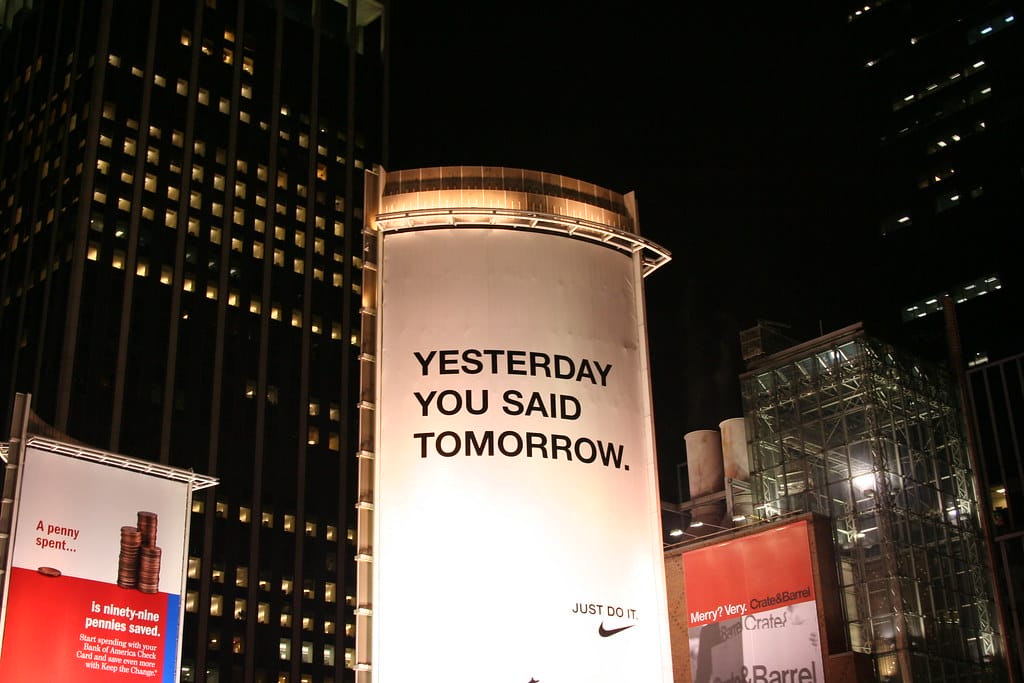
4. Elevating Your Projects with Typeface Selection
Selecting the perfect typeface is an art form that extends beyond aesthetics, delving into emotional and psychological impact. By carefully considering the typeface’s emotional undertones and how they align with a project’s desired mood and atmosphere, designers can create immersive experiences that captivate and resonate with the audience.
Setting the Tone with Typeface Choices
A whimsical script font can evoke warmth and approachability, making it ideal for brands seeking a personal connection. Conversely, a bold, uppercase sans serif can exude strength and authority, suitable for corporate or authoritative messages. Aligning the typeface’s emotional tone with the project’s overarching mood ensures a cohesive and engaging experience for the viewer.
Typeface Selection in Branding and Advertising
Successful brands and advertising campaigns often harness the power of typeface psychology to connect with their audiences. For example, Coca-Cola’s iconic script logo embodies the brand’s heritage and evokes nostalgia and happiness. Similarly, luxury brands like Tiffany & Co. may use elegant serif fonts to convey sophistication and exclusivity. This demonstrates how strategic typeface selection can significantly contribute to brand identity and emotional engagement.
Creating the right mood and atmosphere in your design involves more than just aesthetic choices; it’s about using font psychology to evoke the desired emotional response. Whether you aim for the elegance of calligraphy in wedding templates or the boldness of slab serif fonts in advertising, each decision should align with the project’s overall mood. Remember, successful brands like Disney have mastered this art, using typefaces that complement their storytelling and connect emotionally with their audience.
5. Conveying Emotions Through Fonts
Understanding the role of fonts as emotional conduits in design is crucial for effective visual communication. A font choice can evoke specific feelings, from the familiarity and comfort of a rounded sans serif to the authoritative presence of a bold slab serif. Brands can use font psychology to emotionally align with the design’s intent, which can amplify the message’s impact, fostering a deeper connection with the audience.
Balancing Aesthetics and Emotional Impact
Achieving harmony between a font’s aesthetic appeal and emotional impact is a delicate balance that designers must navigate. While a typeface may be visually stunning, it must also resonate with the emotional tone of the message. For example, an elegantly minimalist sans serif may be aesthetically pleasing but may need to be more effective if the message requires warmth and personal touch. Striking the right balance ensures the typeface enhances the design’s visual appeal and emotional depth.
From the warmth of a calligraphic font to the assertiveness of a bold font, your choices can significantly influence your audience’s emotional journey. As you design, consider how font psychology can transform standard templates into compelling narratives that resonate with viewers, much like fashion brands that skillfully blend decorative fonts with minimalist geometric types to craft a unique brand identity.
6. Advanced Techniques in Leveraging Typeface Psychology
Exploring innovative and experimental uses of typeface psychology can open new avenues for emotional expression and engagement in design, pushing the boundaries of traditional typography.
Experimental and Innovative Typeface Uses
Designers can create dynamic and captivating visual narratives by experimenting with unconventional typeface applications, such as blending, morphing, or layering typefaces. These experimental approaches can convey movement, tension, or other complex emotions, adding a unique dimension to visual storytelling.
Future Trends in Typeface Psychology and Design
The evolving landscape of digital media and design shapes typeface psychology trends. The rise of interactive and immersive technologies, such as augmented and virtual reality, offers new platforms for typographic expression. Additionally, the growing emphasis on accessibility and inclusivity in design will likely influence the development of new font types and styles, prioritizing readability and user experience without sacrificing emotional impact.
Exploring advanced techniques in typeface psychology opens up new possibilities for innovative and impactful design. From using futuristic fonts in tech presentations to incorporating italic and lowercase styles for a more dynamic and approachable look, every choice is an opportunity to enhance the design’s functionality and emotional appeal. As you push the boundaries of traditional typography, remember that brands like Nike have effectively used bold and geometric fonts to convey strength and innovation, setting a benchmark for the effective use of font psychology in design.
Harnessing the Emotional Power of Typography in Design
Typeface psychology is pivotal in creative design, influencing audience perception and emotional engagement. By understanding and applying the principles of typeface psychology, designers can enhance their work’s visual and emotional appeal, creating designs that resonate deeply with viewers. This exploration of typeface psychology should inspire designers to experiment with fonts creatively, using the power of typography to forge deeper connections and evoke meaningful emotions in their audience.
—
FAQ
Typeface psychology delves into the study of how different typefaces and fonts can evoke specific emotions, feelings, and associations in the viewer. It explores the impact of typography on human psychology, including how font choices can influence a design’s overall mood, message clarity, and audience engagement.
Typeface personality refers to the human-like characteristics attributed to different fonts, ranging from reliable and traditional to modern and dynamic. Each typeface carries its own perceived traits, influencing how a message is received and the emotional response it elicits from the audience.
A typeface is a set of characters that share a consistent design style, including letters, numbers, and symbols. Examples of typefaces include Times New Roman, a classic serif typeface known for its readability; Arial, a widely used sans serif typeface with a clean and modern appearance; and Georgia, a serif typeface designed for clarity on digital screens.
The psychology behind font choices involves understanding how different fonts affect the viewer’s perception, emotions, and cognitive processing. Font choices can communicate trustworthiness, professionalism, creativity, or playfulness, among other traits, and can significantly impact how a message is interpreted and retained.
Typeface choice can significantly impact perception and behavior by influencing how information is processed and how engaging the content is. For example, a well-chosen typeface can make content more readable, appealing, and persuasive, affecting the viewer’s behavior, such as increasing the likelihood of taking a desired action or forming a positive brand impression.
The psychology of typeface influences consumer behavior by shaping brand perceptions, enhancing message clarity, and evoking specific emotional responses. Strategic typeface choices can make branding and advertising more effective, increasing brand recognition, loyalty, and consumer engagement.